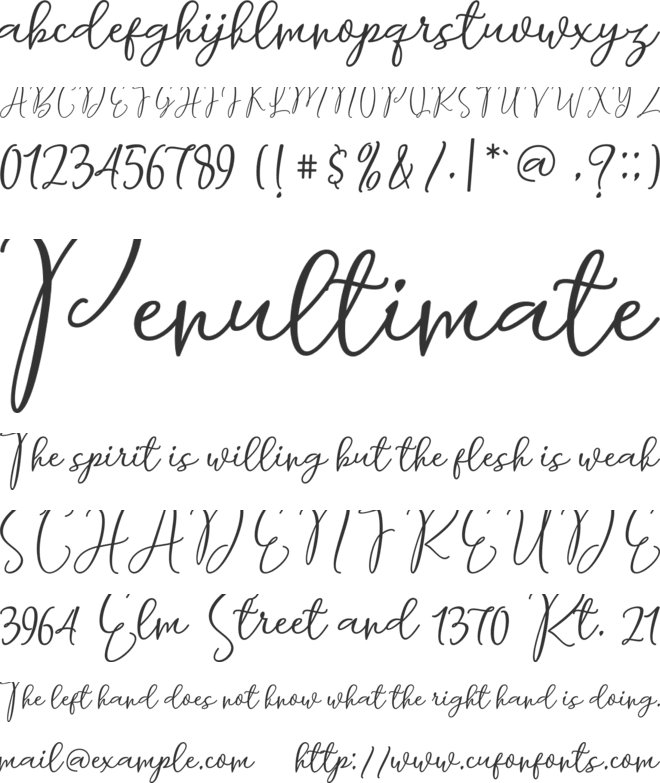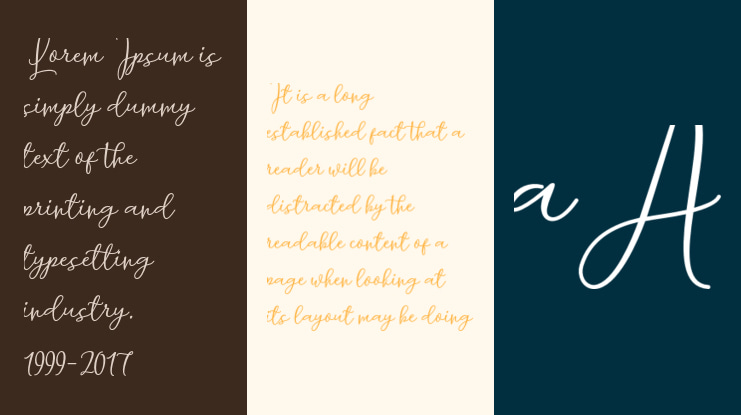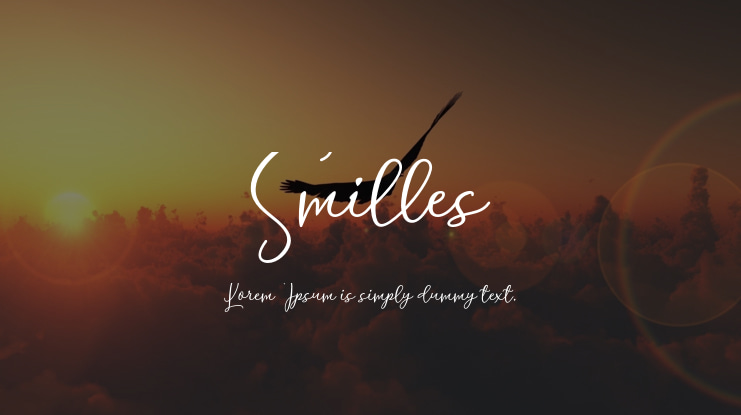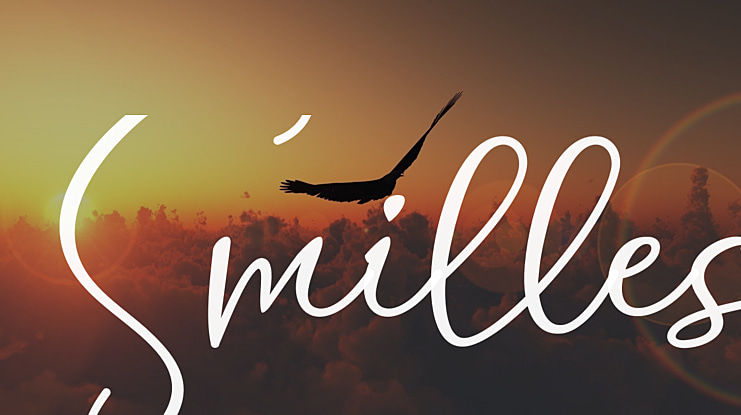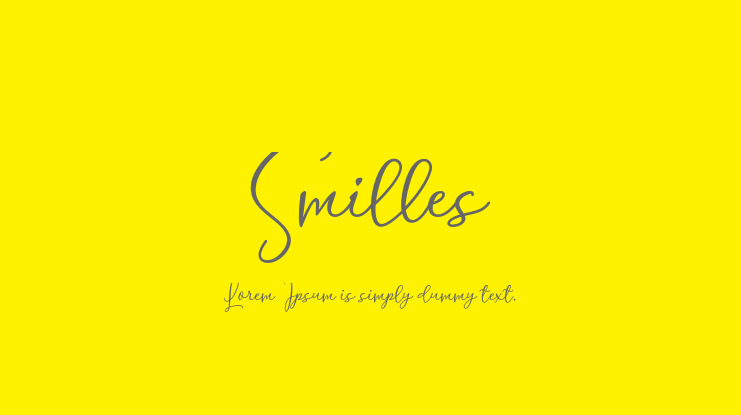
Smilles Font
Smilles is another lovely modern calligraphy typefaces, which is combining the style of classic calligraphy with an modern style. combines from copperplate to contemporary typeface with a dancing baseline, modern and elegant touch. including initial and terminal letters, alternates, and ligatures.